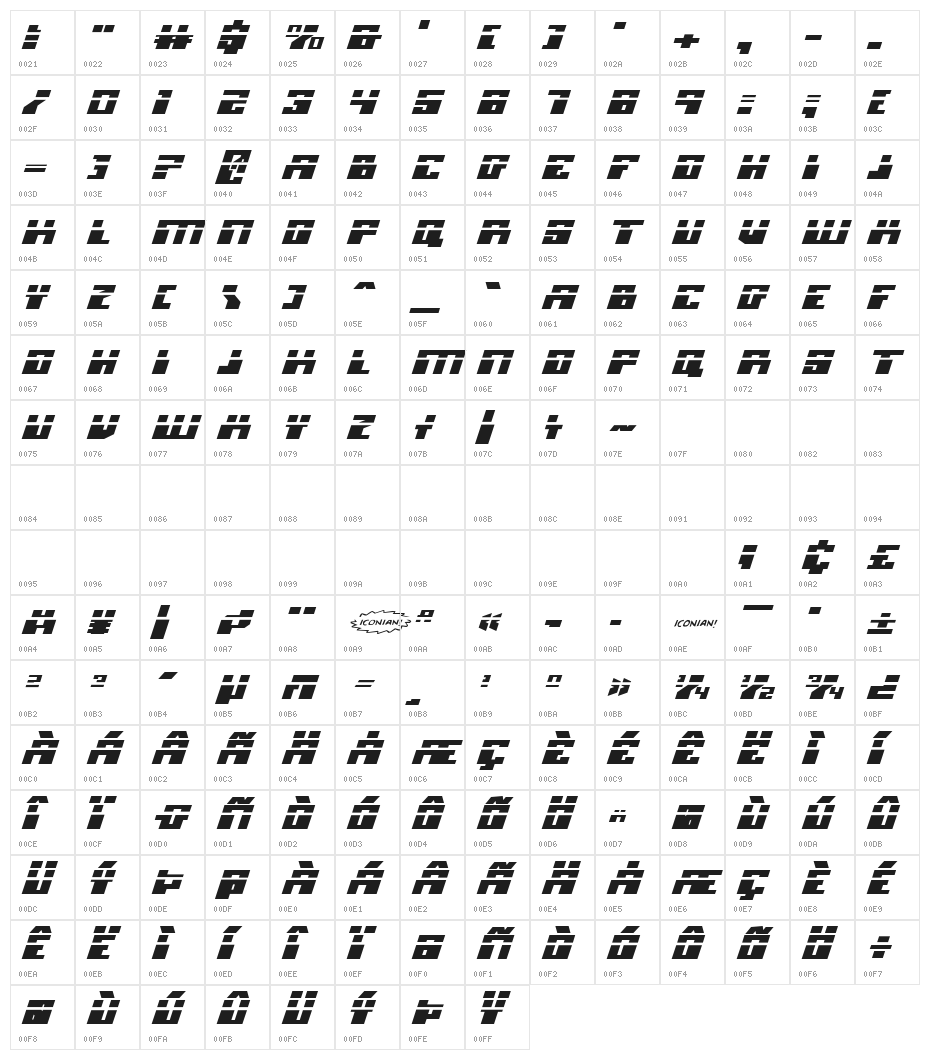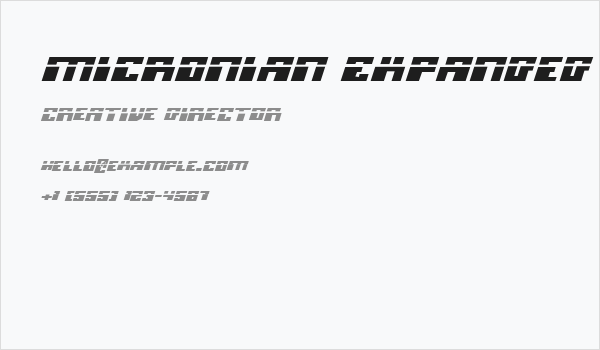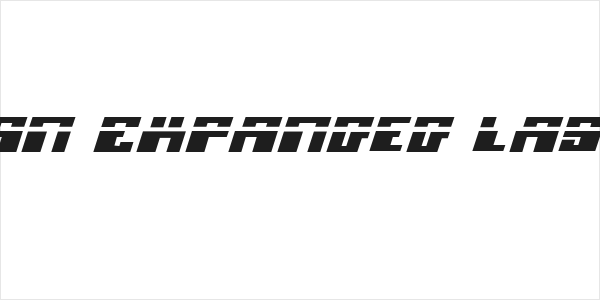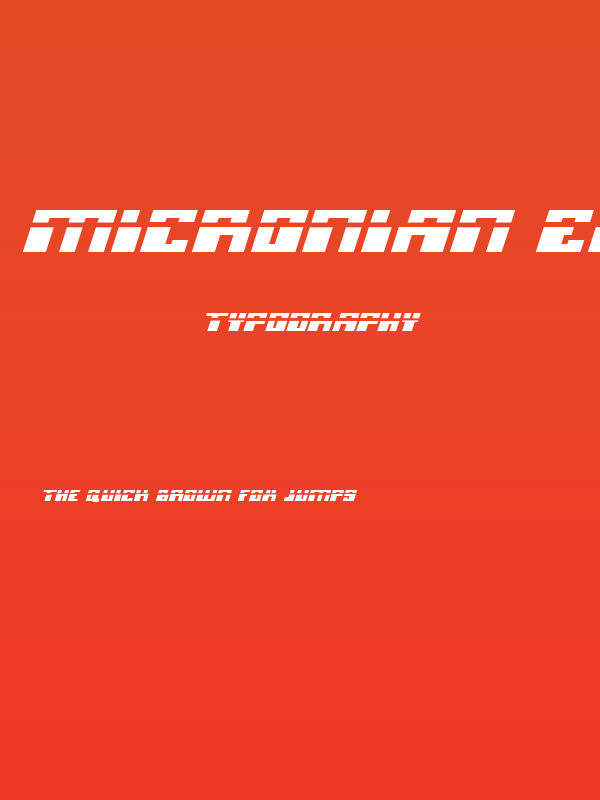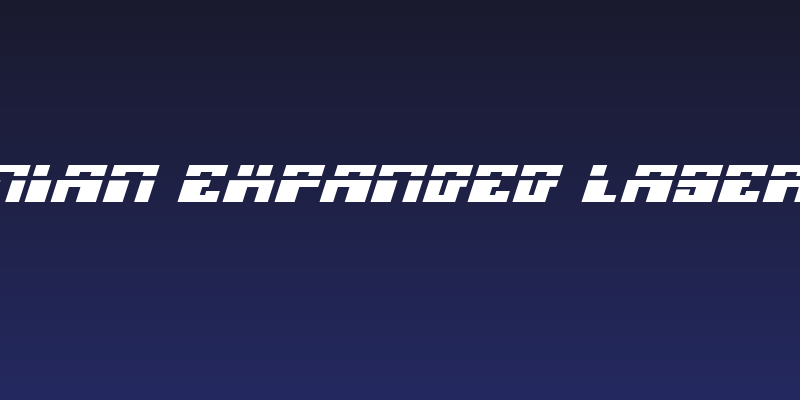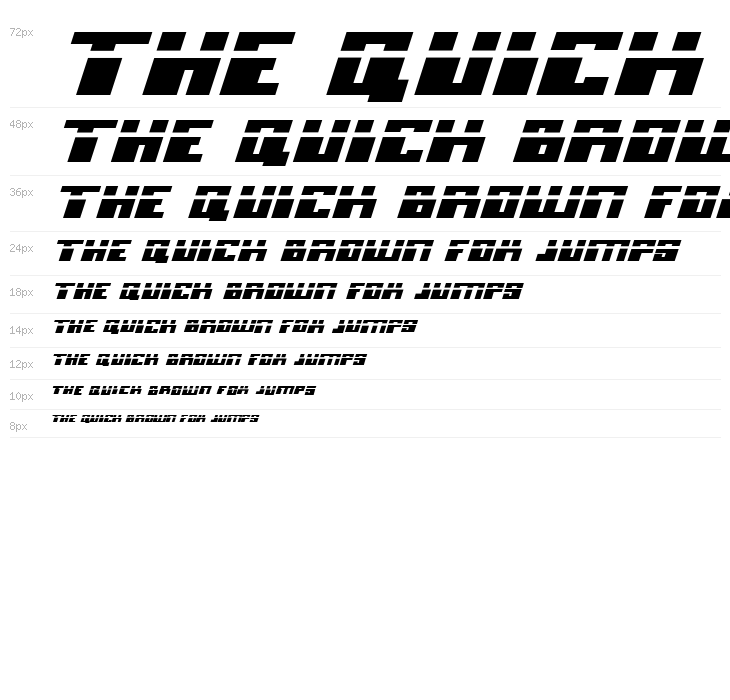
Micronian Expanded Laser Italic Font
Micronian Expanded Laser Italic Description
This font features a futuristic and bold design with a distinct italic slant, giving it a dynamic and energetic appearance. The characters are expanded, providing a wide stance that enhances readability while maintaining a unique style. The geometric shapes and sharp angles contribute to its modern aesthetic, making it suitable for projects that require a cutting-edge look. The uppercase and lowercase letters are consistent in style, with numbers and special characters following the same design principles, ensuring uniformity across all text elements.
Proposed ProjectsIdeal for sci-fi themed designs, technology branding, video game titles, and futuristic posters.